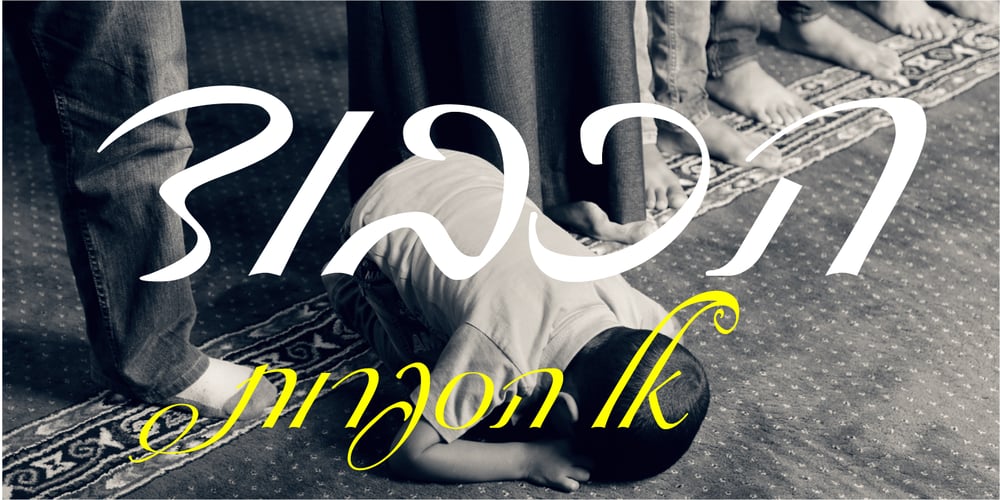
Levant MF Font Family was designed by Zvika Rosenberg and published by Masterfont. Levant MF contains 1 styles and family package options. Super elegant typeface with classic vintage handwritten strokes of soft calligraphy.